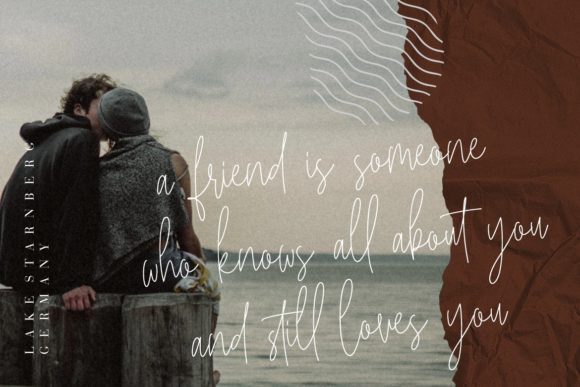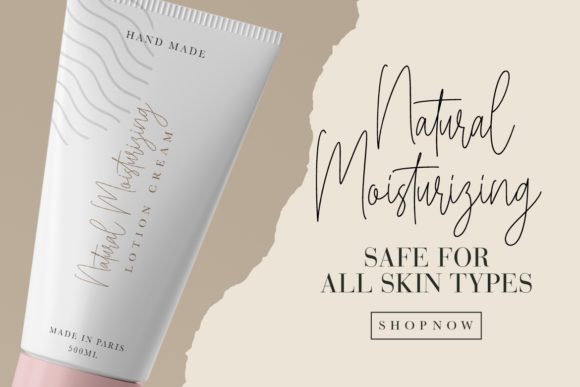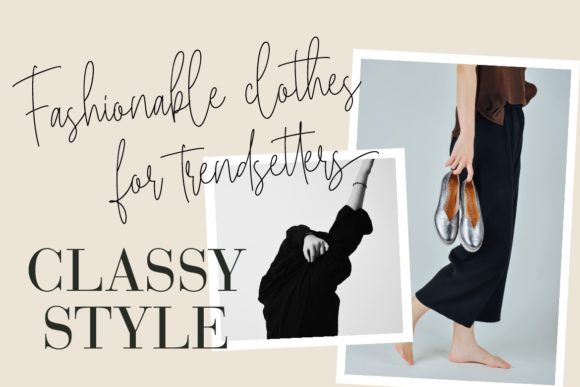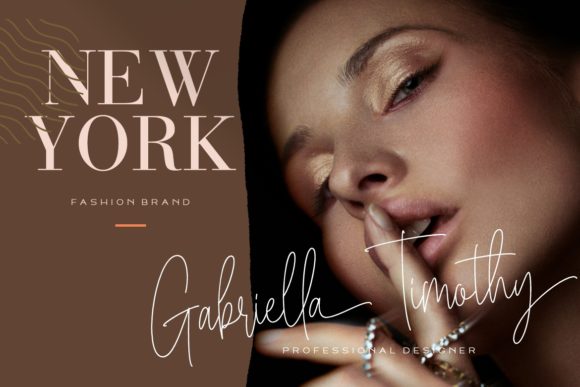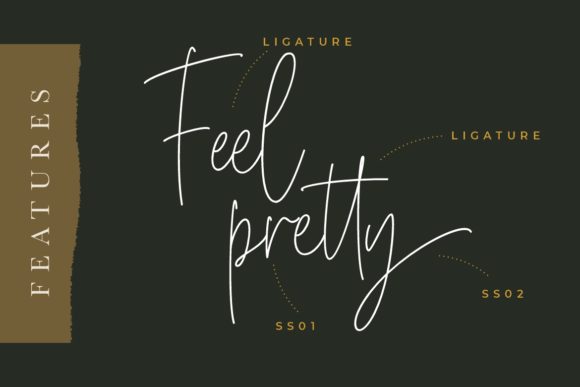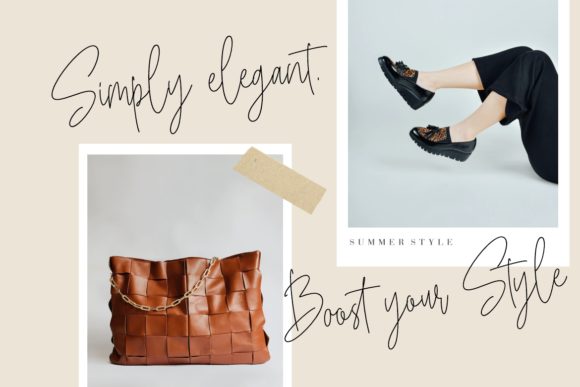
Bucherry Font: Elevate Your Designs with a Stylish and Delicate Handwritten Touch
In the world of design, typography plays a crucial role in conveying the message and aesthetic of a project. Among the numerous fonts available, Bucherry stands out as a stylish and delicate handwritten font that can add a touch of elegance to any design. With its clean, thin, and smooth vibe, Bucherry is poised to become a favorite among designers and crafters alike.
What Makes Bucherry Font Special?
Bucherry font is characterized by its unique blend of style and simplicity. Its delicate strokes and clean lines make it perfect for designs that require a touch of sophistication. Whether you’re working on a branding project, a wedding invitation, or a DIY craft, Bucherry font is sure to impress. Here are some key features that make Bucherry font special:
- Clean and Thin Lines: Bucherry font boasts clean and thin lines that give it a smooth and elegant appearance. This makes it ideal for designs that require a subtle yet sophisticated touch.
- Handwritten Style: The handwritten style of Bucherry font adds a personal touch to any design. It’s perfect for creating a sense of warmth and connection with your audience.
- Versatile: Bucherry font is versatile and can be used in a variety of design projects, from digital designs to print materials.
How to Use Bucherry Font in Your Designs
Using Bucherry font in your designs is easy and straightforward. Here are some tips to get you started:
- Pair it with Bold Fonts: Pair Bucherry font with bold fonts to create a striking contrast that grabs attention.
- Use it for Headings and Titles: Use Bucherry font for headings and titles to add a touch of elegance and sophistication.
- Experiment with Colors: Experiment with different colors to find the perfect match for your design. Bucherry font looks great in both bright and muted colors.
Bucherry Font in Digital Design
In digital design, typography plays a crucial role in creating a seamless user experience. Bucherry font can be used in a variety of digital design projects, including:
- Web Design: Use Bucherry font to create stunning website headers, titles, and descriptions that engage your audience.
- Social Media Graphics: Use Bucherry font to create eye-catching social media graphics that stand out in a crowded feed.
- Email Marketing: Use Bucherry font to create beautiful email newsletters that showcase your brand’s personality.
Bucherry Font in Print Design
In print design, Bucherry font can be used in a variety of projects, including:
- Wedding Invitations: Use Bucherry font to create beautiful wedding invitations that set the tone for the big day.
- Business Cards: Use Bucherry font to create elegant business cards that make a lasting impression.
- Brochures and Flyers: Use Bucherry font to create stunning brochures and flyers that showcase your brand’s products and services.
In conclusion, Bucherry font is a stylish and delicate handwritten font that can elevate your designs to the next level. With its clean, thin, and smooth vibe, Bucherry font is perfect for designers and crafters who want to add a touch of elegance and sophistication to their projects. Whether you’re working on a digital design or print project, Bucherry font is sure to impress. So why wait? Give Bucherry font a try today and see the difference it can make in your designs!